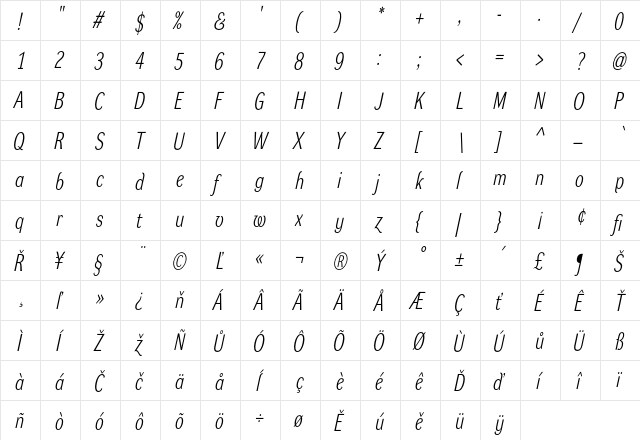
Dynamo LC Regular
Design Context for Dynamo LC Typeface
Dynamo LC offers clean, dependable letterforms without strong stylistic allegiance, making it a practical choice for designers who need flexibility.